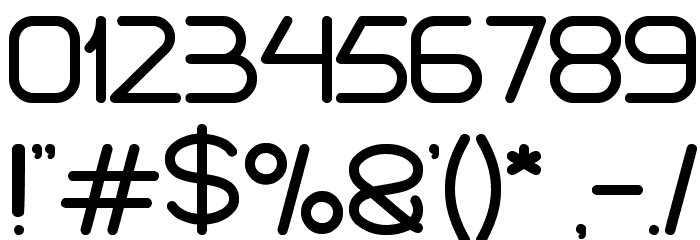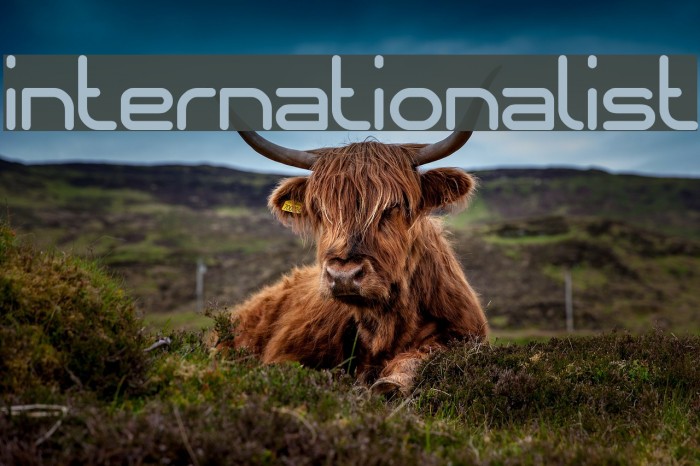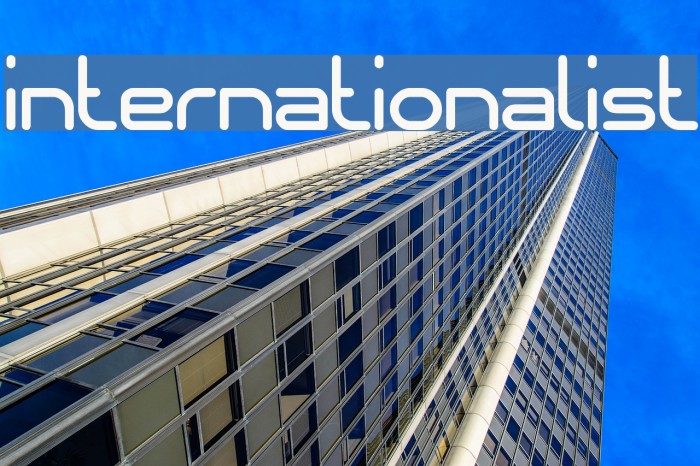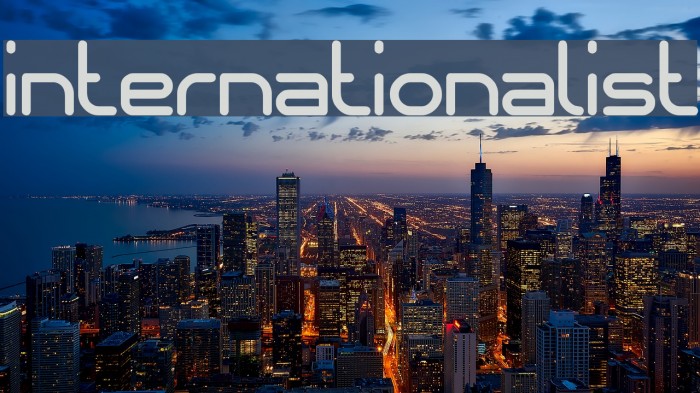
internationalist Font
This font features a modern, rounded design with a geometric structure. The characters are uniform in width, giving it a monospaced appearance, yet they maintain a playful and approachable aesthetic. The rounded edges and consistent stroke width contribute to a clean and futuristic look. The uppercase and lowercase letters are well-balanced, and the numerals are clear and easily distinguishable. Special characters are designed with the same rounded and smooth style, ensuring cohesion across all elements.
A modern, rounded font with a geometric and uniform design.
- Proposed Projects: Ideal for tech branding, modern web design, user interfaces, and futuristic-themed projects.
- Use Case: Logos, Headlines, User Interfaces